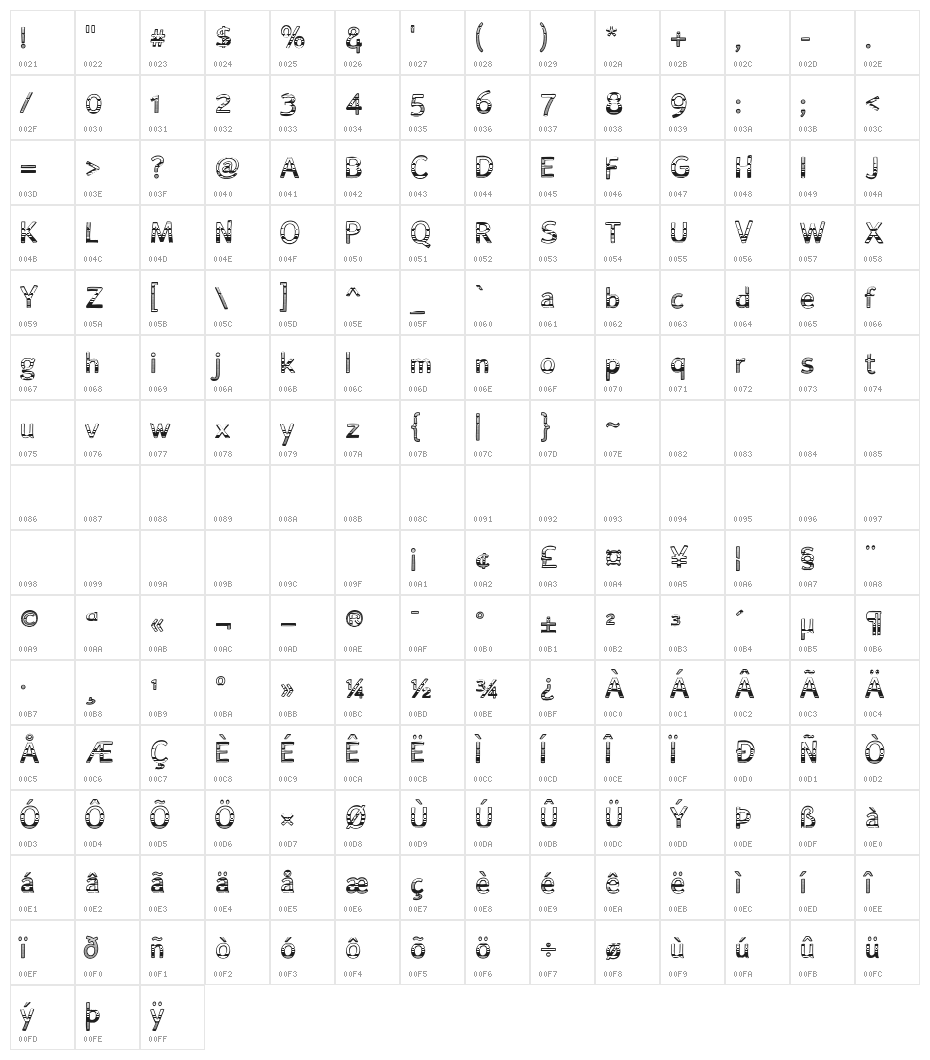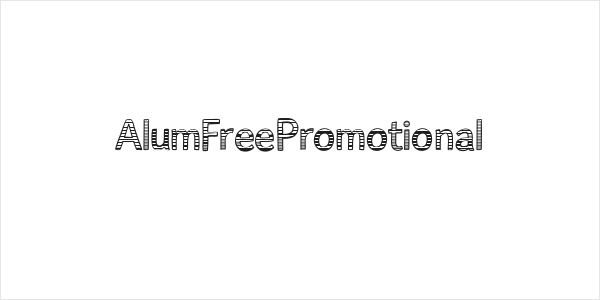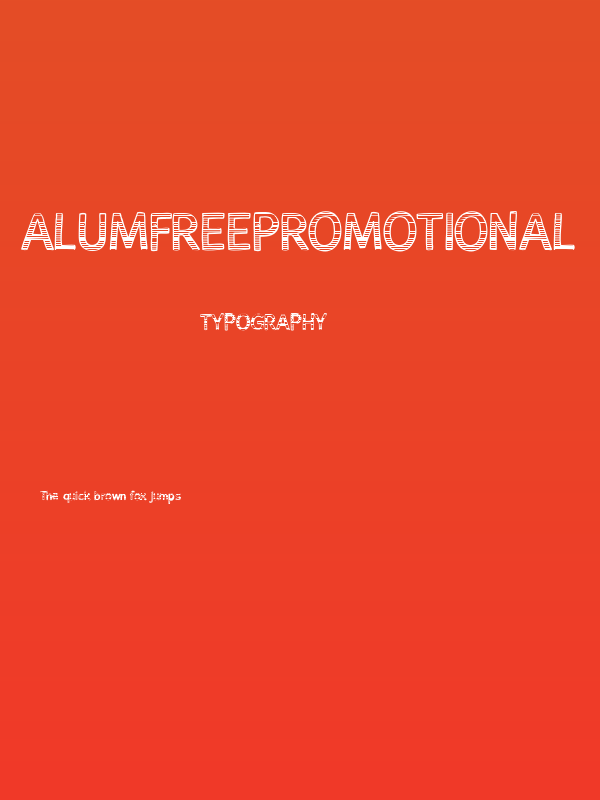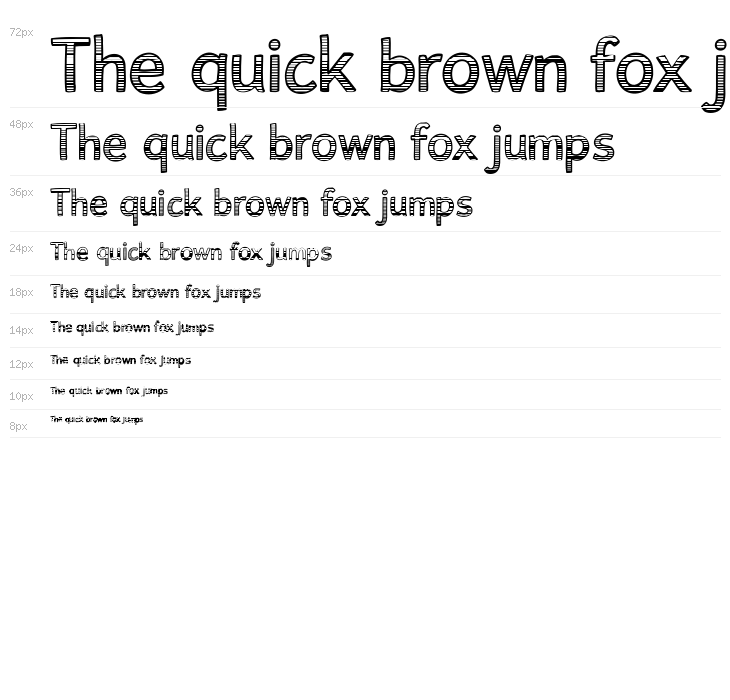
AlumFreePromotional Font
AlumFreePromotional Description
This font features a unique, decorative style with a striped pattern filling each character, giving it a playful and dynamic appearance. The uppercase and lowercase letters maintain a consistent design, with clean lines and a bold presence. The numerals and special characters follow the same aesthetic, ensuring uniformity across all glyphs. The font's design is eye-catching and ideal for projects that require a touch of creativity and fun. Its distinct look makes it suitable for various applications, from posters and flyers to branding and packaging.
Proposed ProjectsIdeal for posters, flyers, branding, packaging, and any creative design projects.